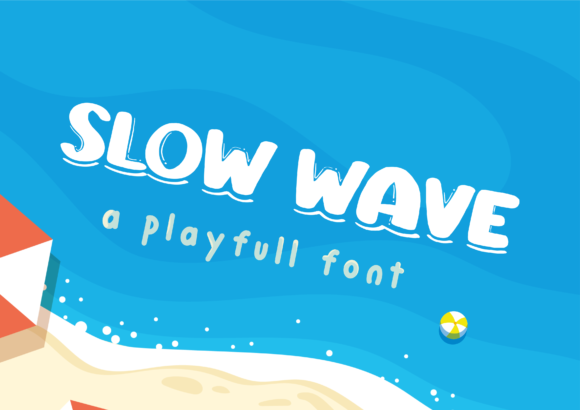
Slow Wave is an astonishing display font exuding a delightful charm and a burst of vibrant hues. It's a true masterpiece crafted by loklike, ready to ignite your designs with its playful and authentic spirit.
Immerse yourself in the world of Slow Wave, where every letter dances with childlike glee and unbridled joy. Its chunky form exudes warmth, inviting you to embrace the playful side of life. Whether it's for a cheerful children's activity or a vibrant school project, Slow Wave is the perfect font to bring your creations to life.
With Slow Wave, you'll discover a font that speaks to the heart, evoking a sense of nostalgia and wonder. It's the ideal choice for capturing those precious moments, whether it's a heartfelt tattoo quote or a memorable design.
Let Slow Wave be your trusted companion, guiding you through a realm of imagination and creativity. Its playful spirit will add a touch of magic to your designs, making them stand out with a unique and captivating charm.
As you embark on your creative journey with Slow Wave, prepare to be swept away by its whimsical allure. Each letter is a stroke of genius, carrying the power to transform your designs into masterpieces.
Slow Wave isn't just a font; it's an invitation to unleash your imagination and make your creative dreams a reality. So, dive into the world of Slow Wave today and let your designs bloom with unparalleled charm and unforgettable style!